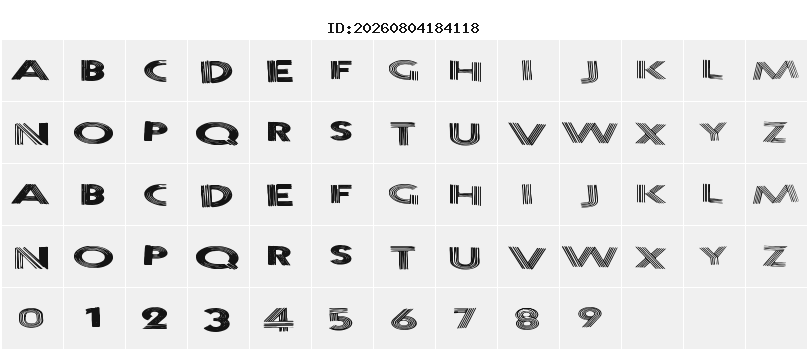
NewsWorthy Preview
• Font Name: NewsWorthy
• Font ID: NewsWorthy:Version 1.00
• Full Font Name: NewsWorthy
• Version: Version 1.00 July 24, 2014, initial release
• PostScript Name: NewsWorthy
• Character Count: 72
• Designer: Xerographer Fonts Max Infeld
• Manufacturer: Xerographer Fonts
• Description: Made at Xerographer Studios in San Francisco,CA
About NewsWorthy.ttf
NewsWorthy.ttf is a modern, elegant sans-serif font designed for ultimate readability and visual harmony. Perfect for branding, headlines, web design, and print materials.